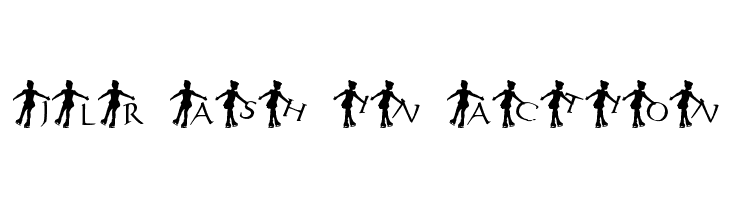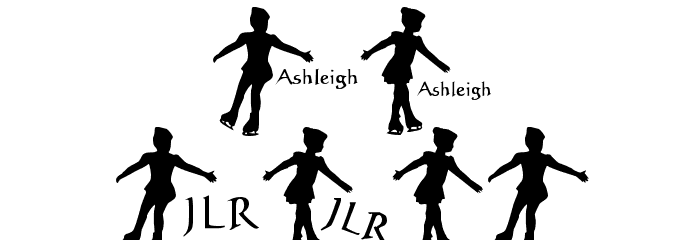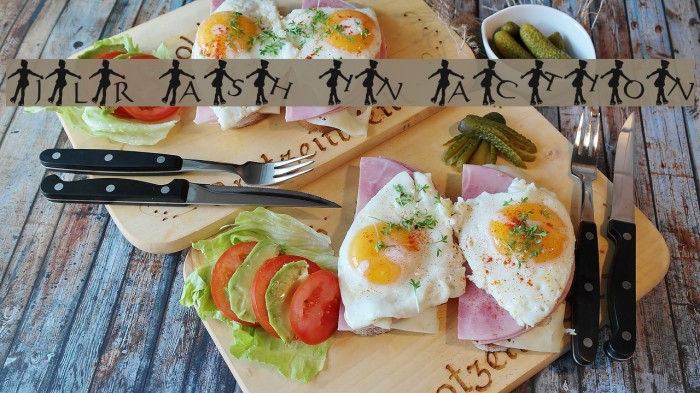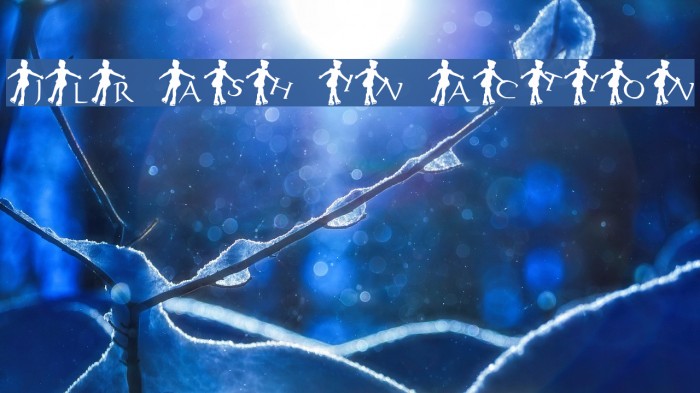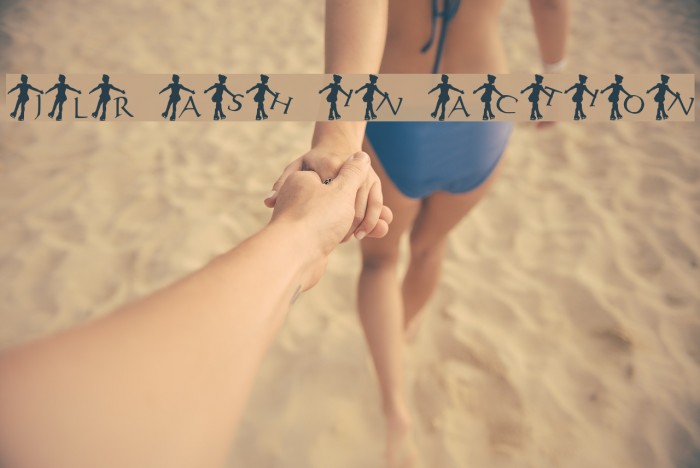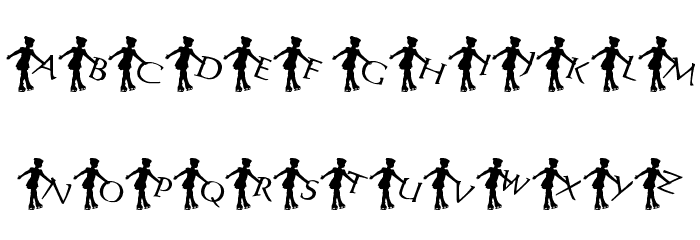
JLR Ash in Action Font
JLR Ash in Action Description
This font is a unique decorative style that incorporates silhouettes of dancers intertwined with each letter. Each character is creatively designed to appear as if the dancer is holding or interacting with the letter, adding a playful and artistic touch. The uppercase and lowercase letters maintain a consistent theme, with the dancer figures providing a whimsical and dynamic element. The font is visually striking and stands out due to its unconventional design, making it suitable for creative and artistic projects. The overall appearance is lively and engaging, capturing attention with its distinctive style.
| Use Case | Logos, Headlines, Artistic projects |
| Proposed Projects | Ideal for dance studio branding, event invitations, artistic posters, and children's book covers. |